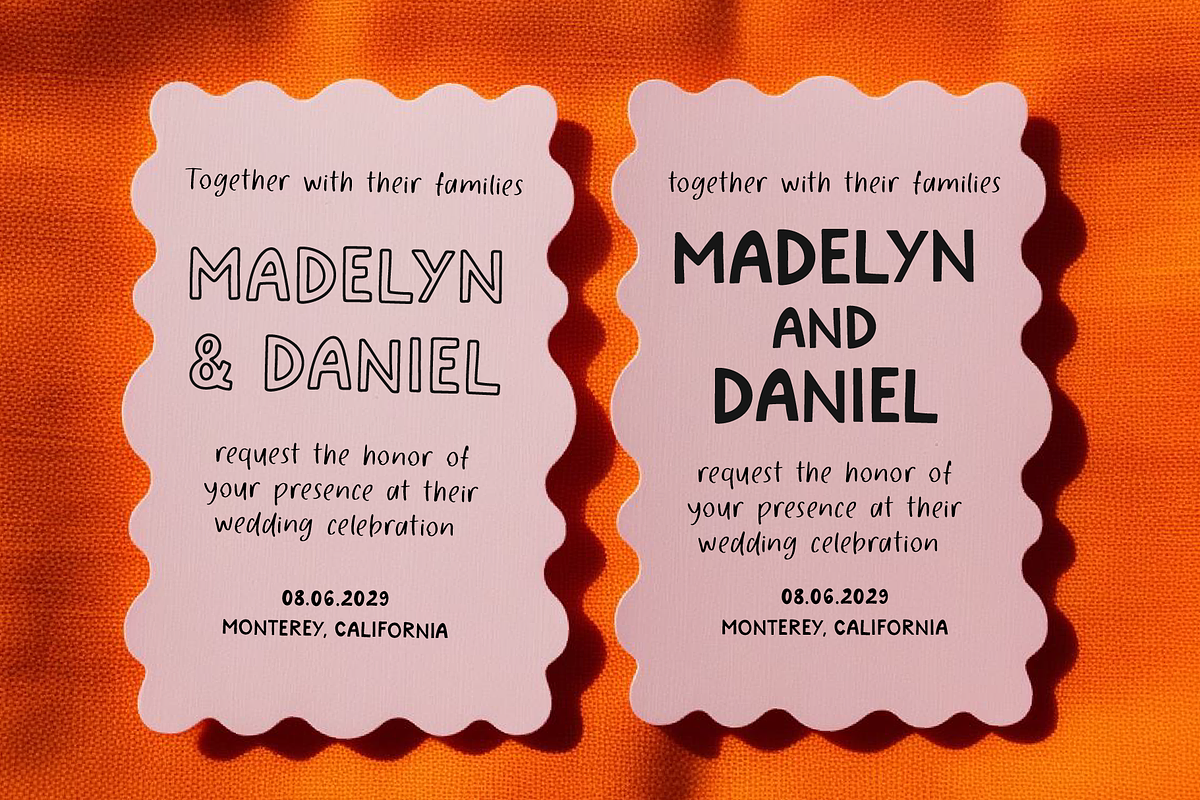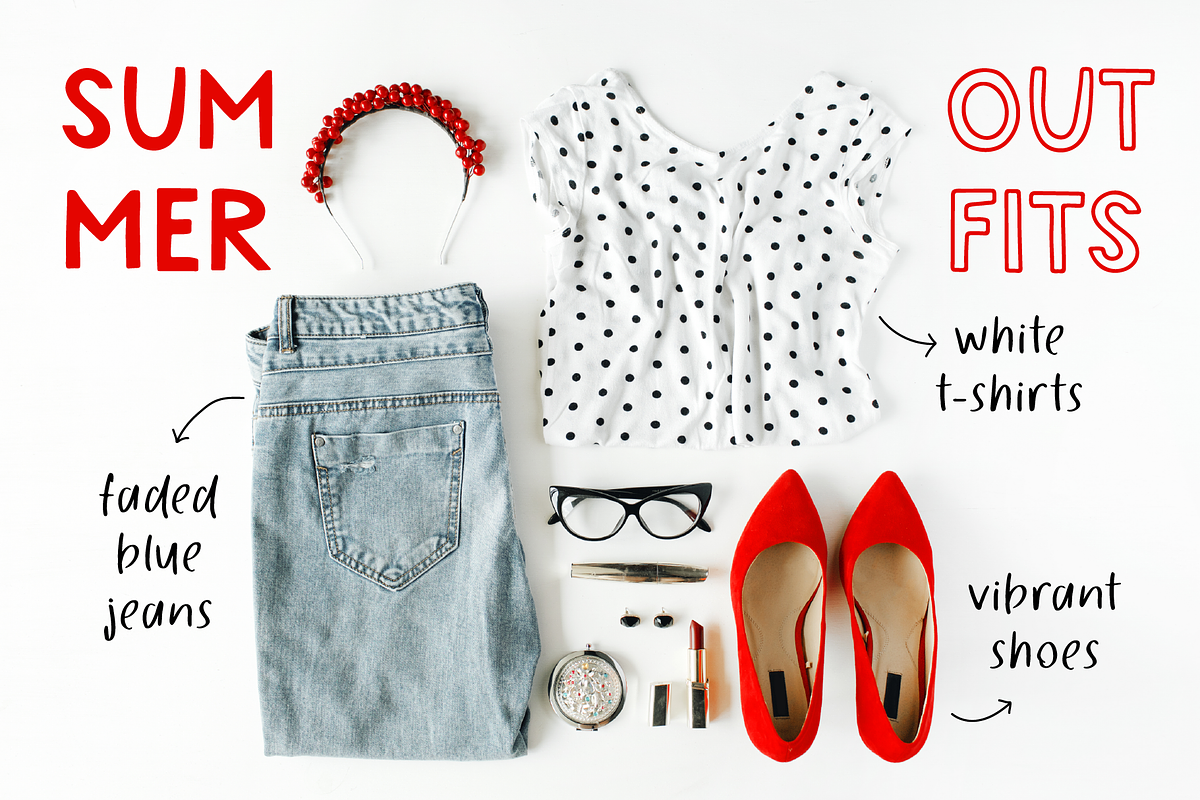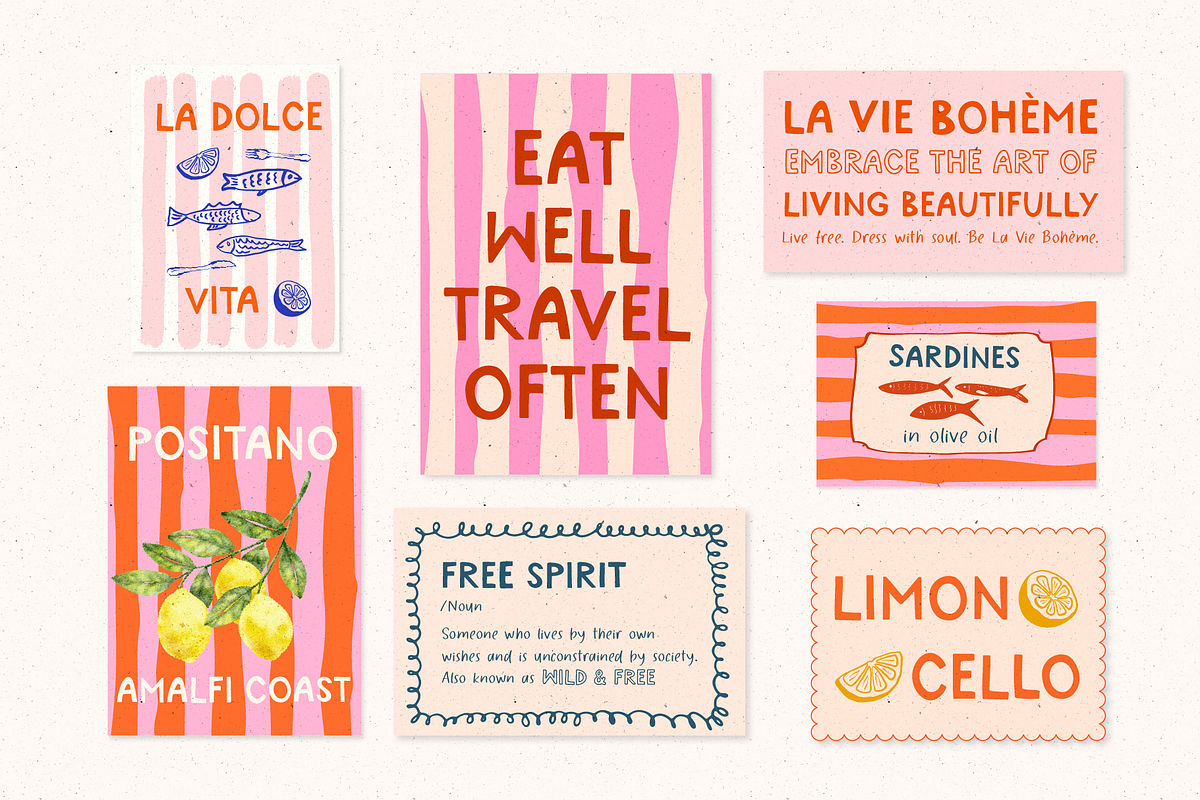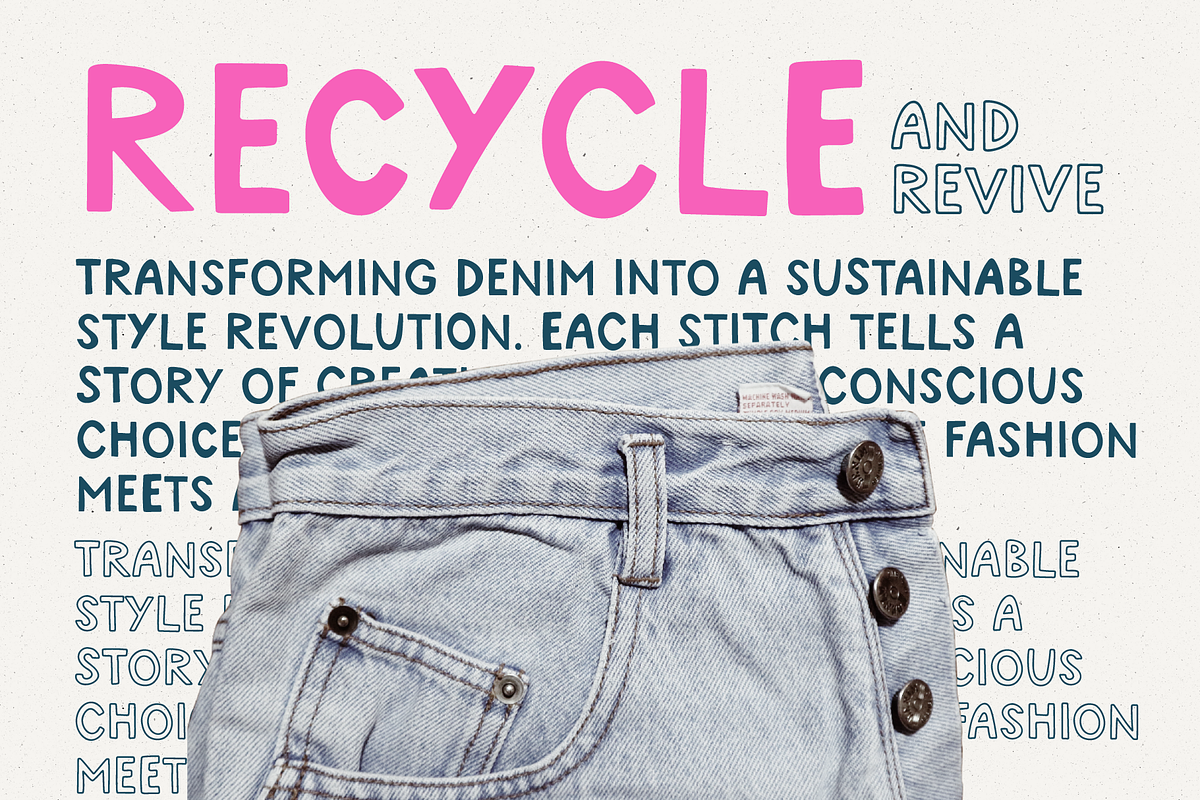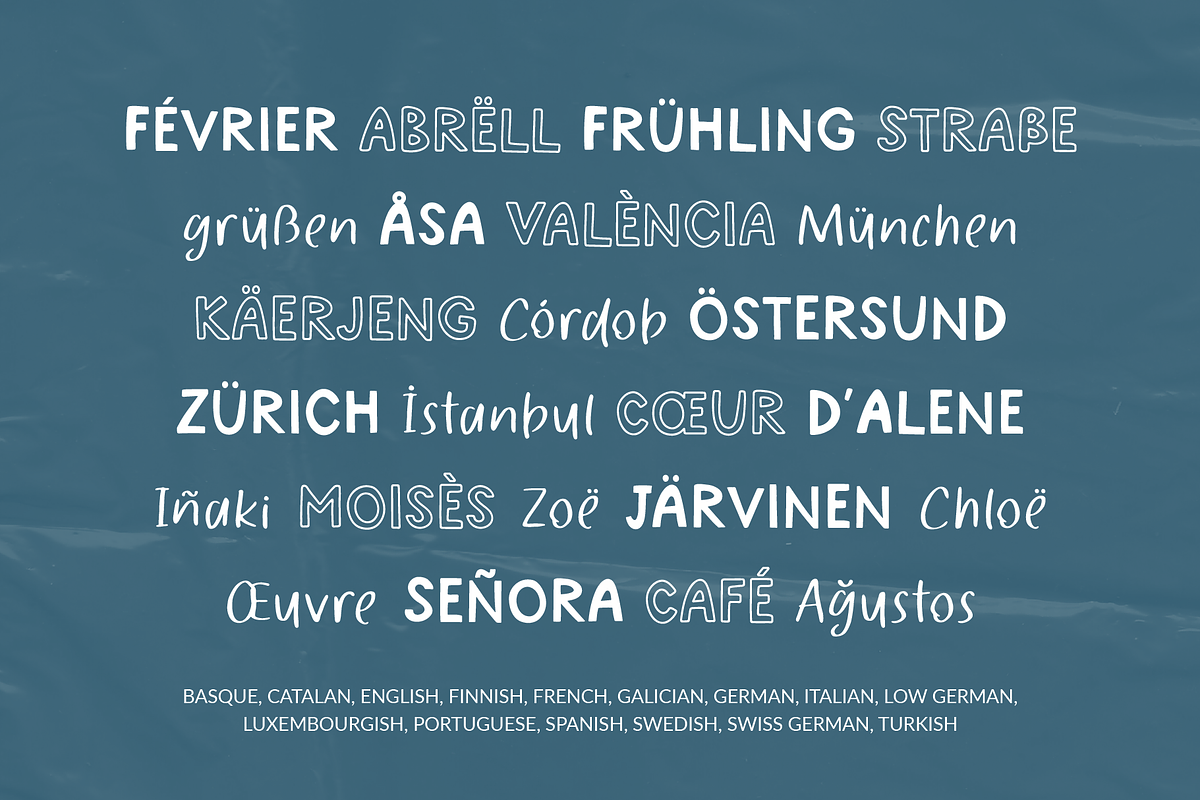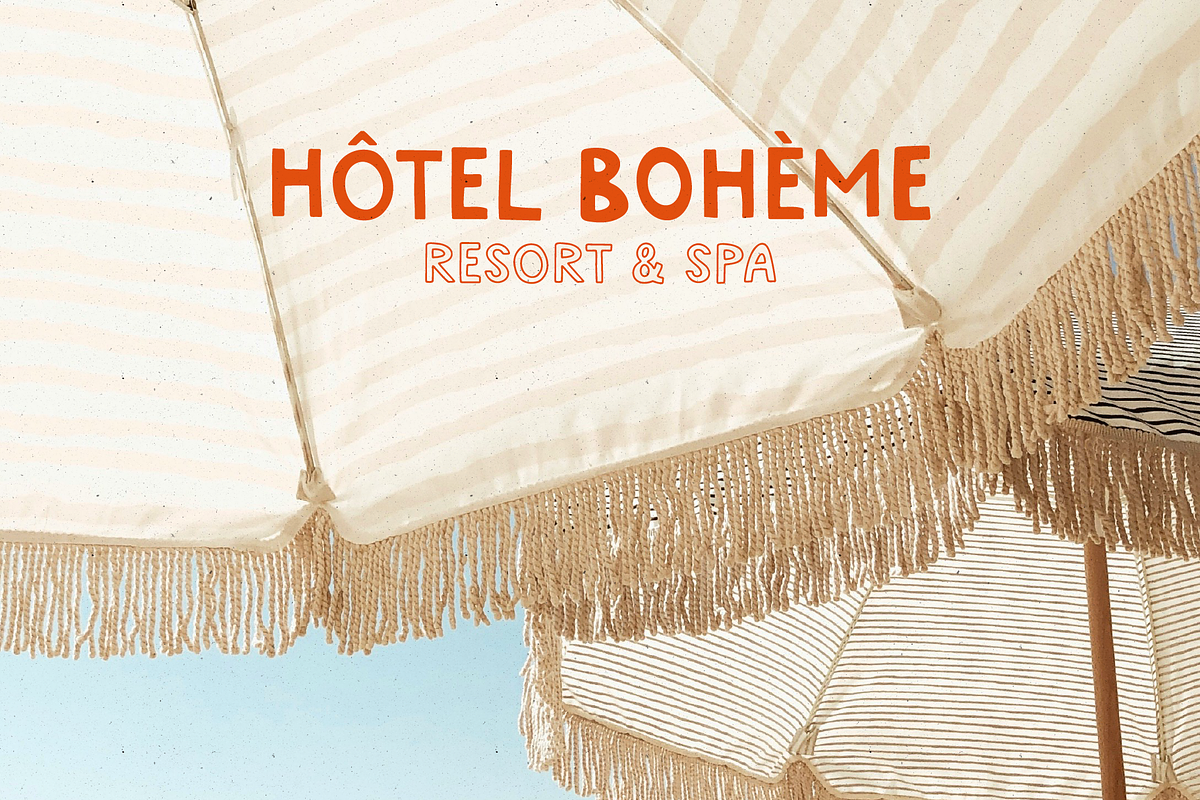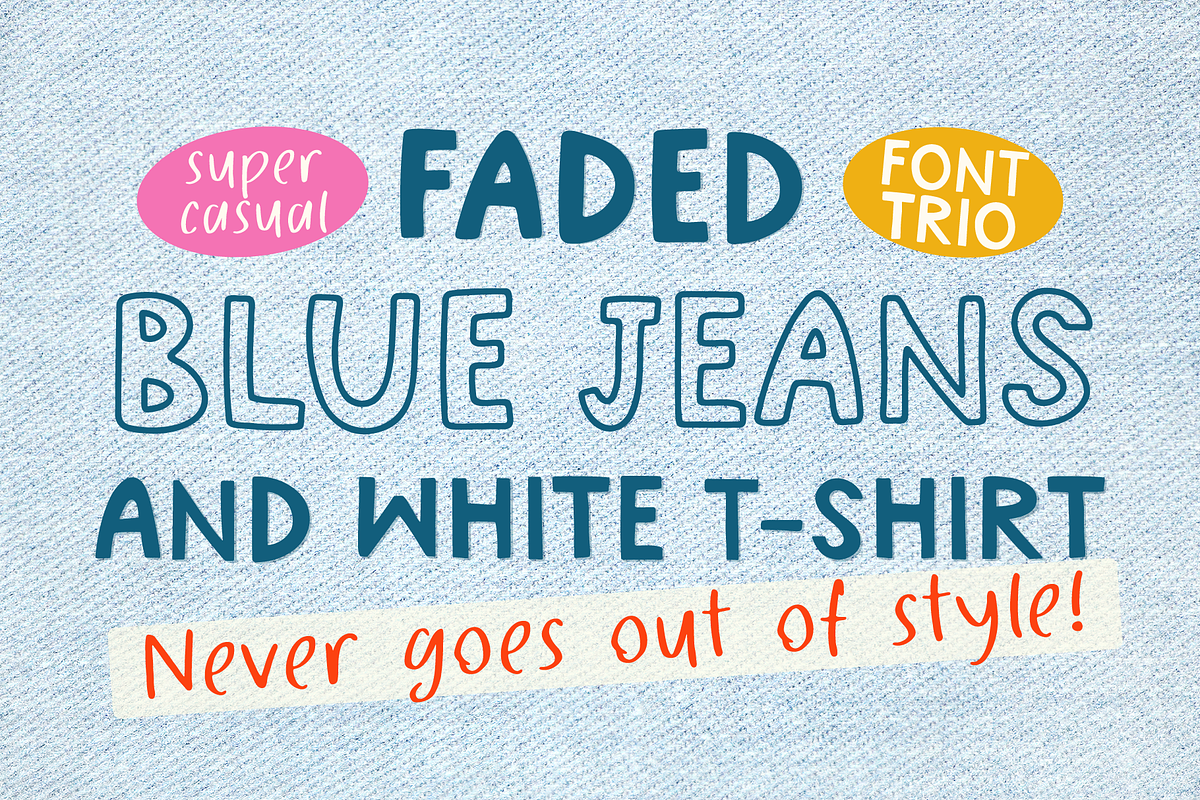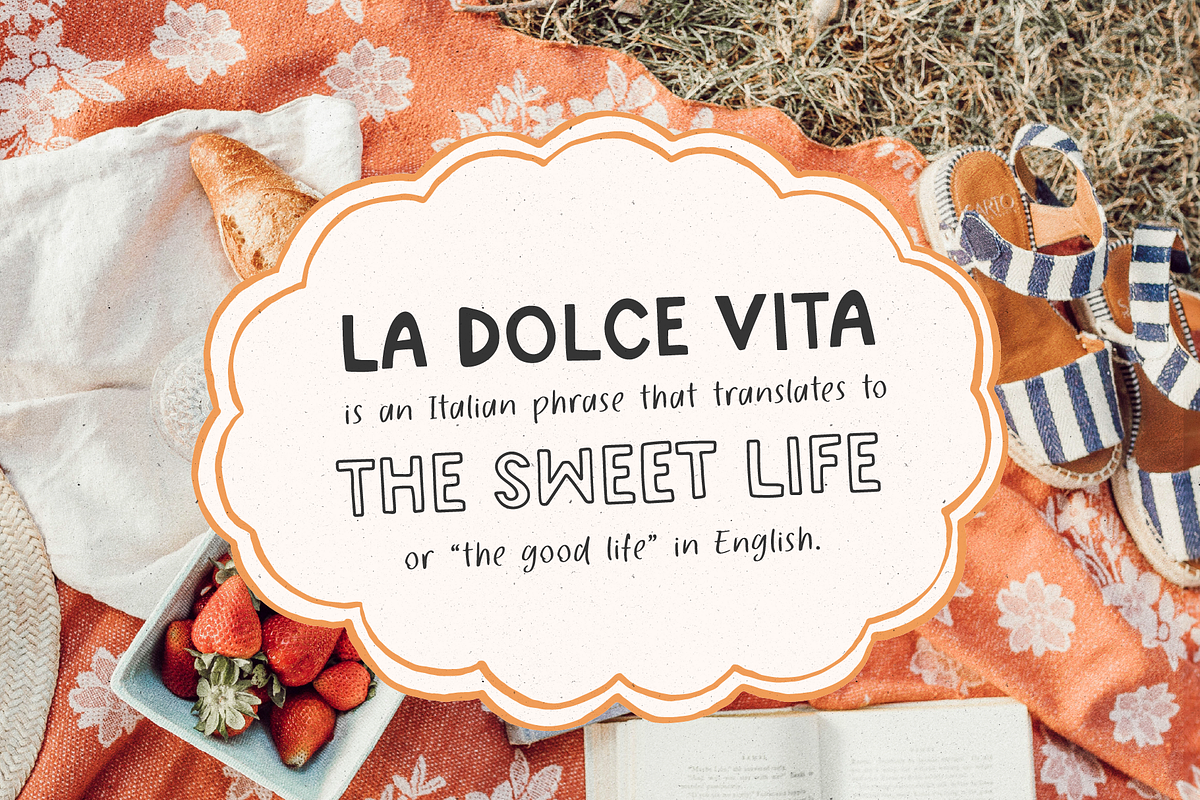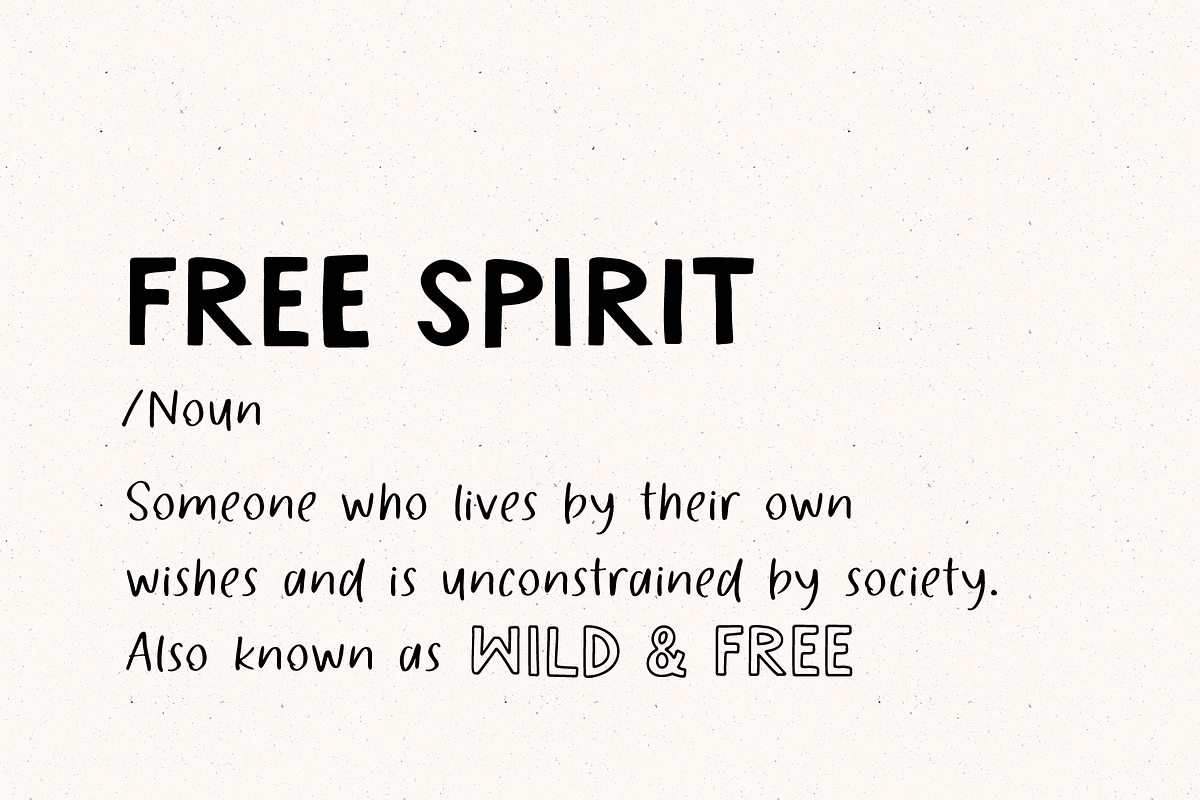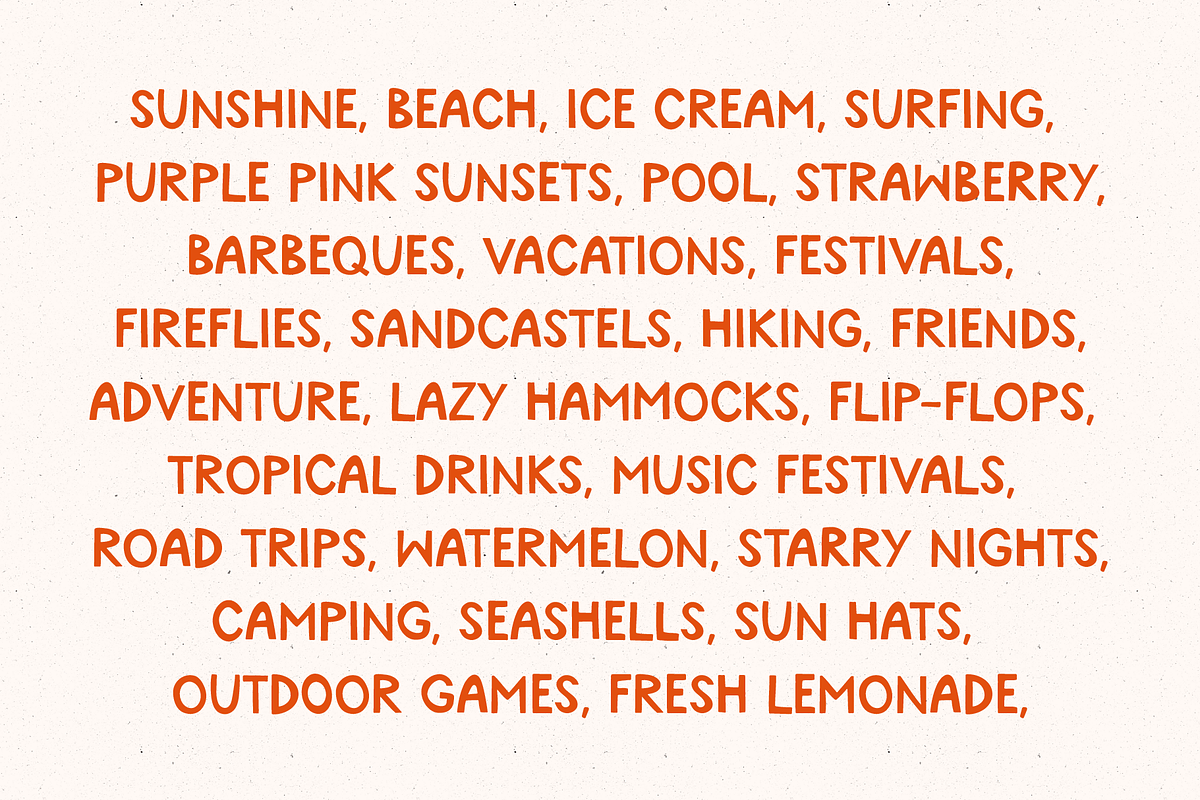
Handwritten Sans Outline Display
Faded Blue Jeans is a collection of fonts with a bold, confident vibe. Whether you're designing logos, packaging, posters, or playful branding, Faded Blue Jeans makes your work stand out with effortless flair.